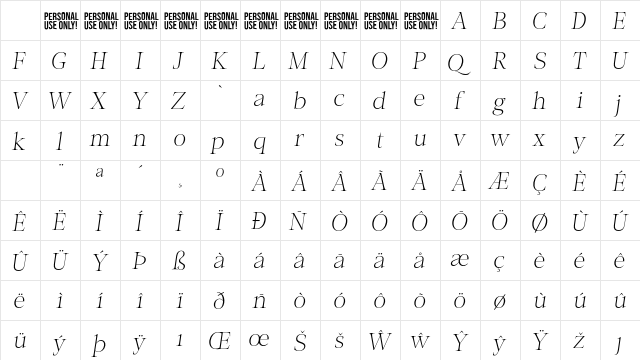
Complete Role Model - Personal Use Oblique Italic glyph index. Displaying only characters natively supported by Role Model - Personal Use Oblique Italic font.
Role Model - Personal Use Oblique is a composed and adaptable typeface that performs quietly and consistently across a wide range of design contexts. The slanted form adds forward momentum and visual energy.
Pro Tip: Use Role Model - Personal Use Oblique for emphasis, pull quotes, and subheadings where its slanted energy can add rhythm to the layout.